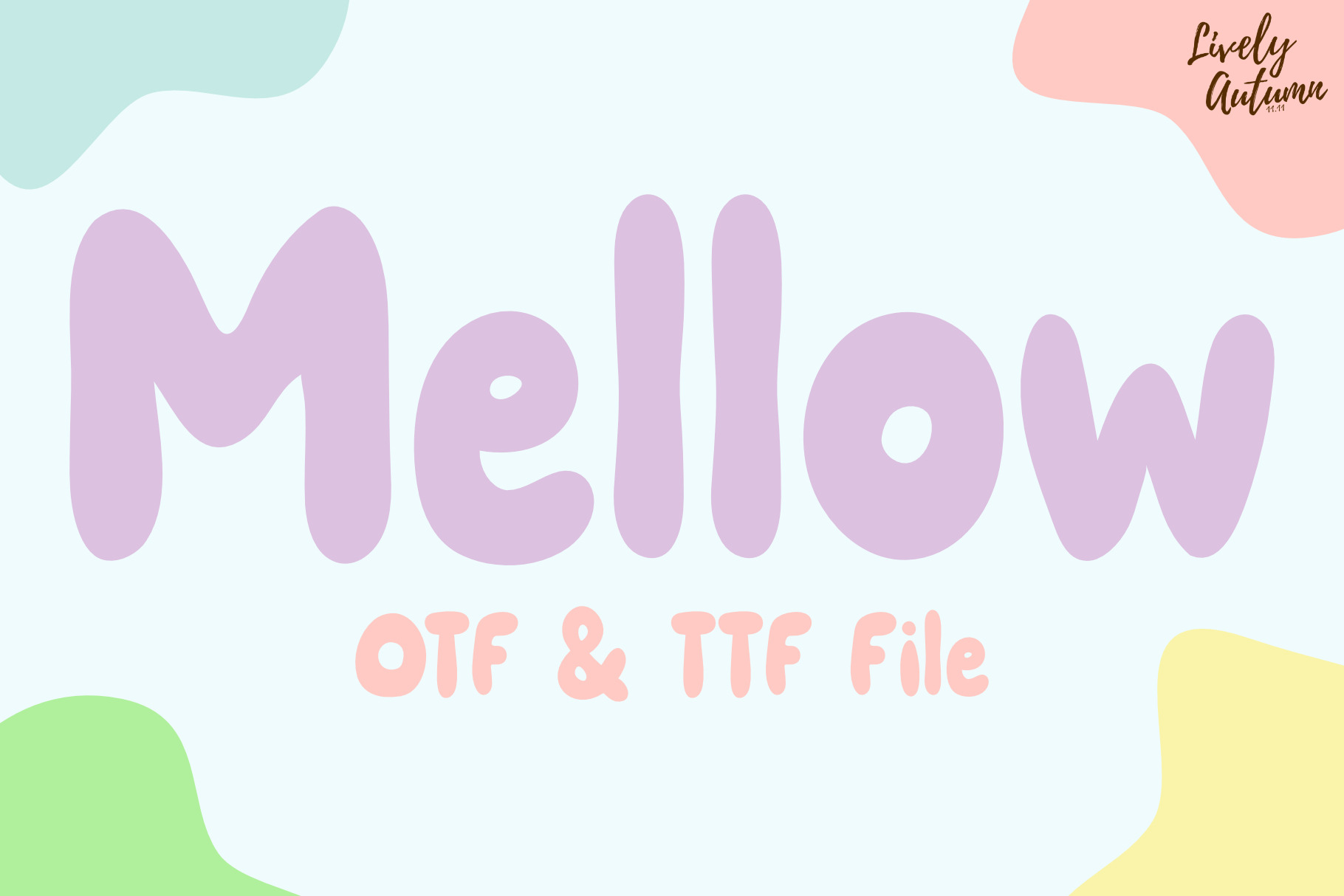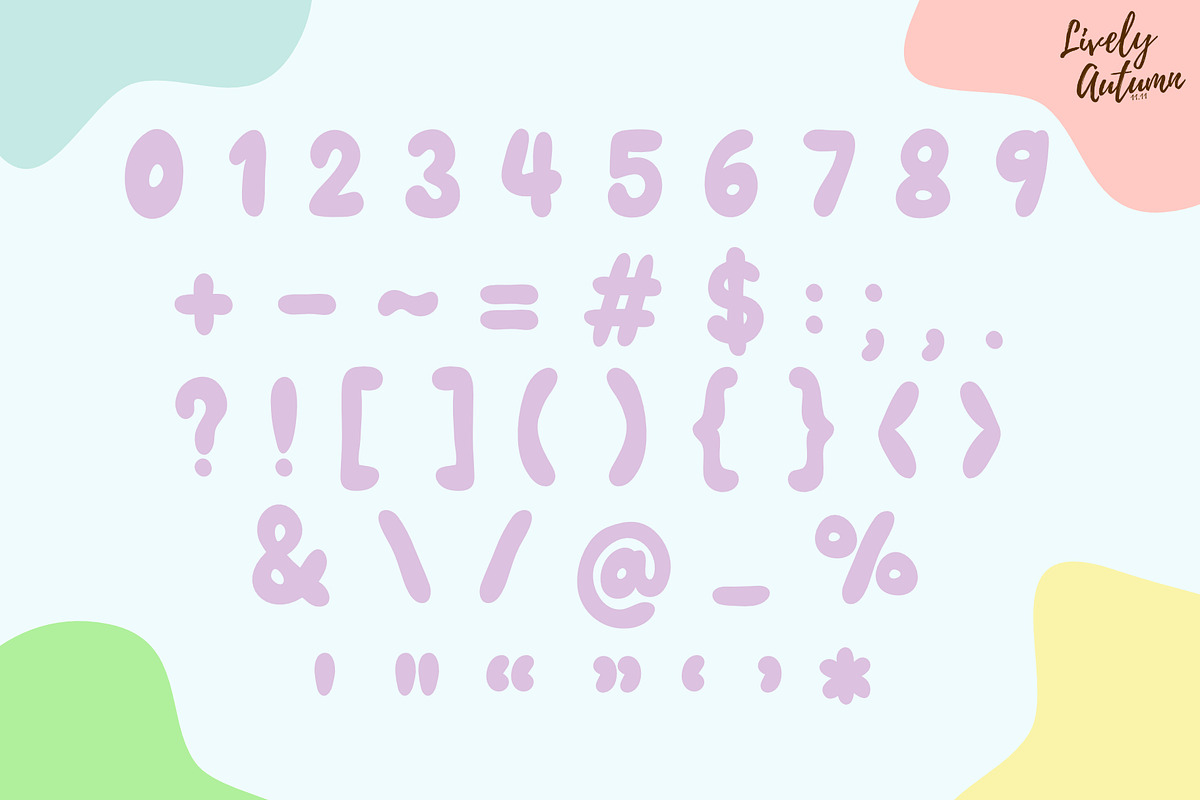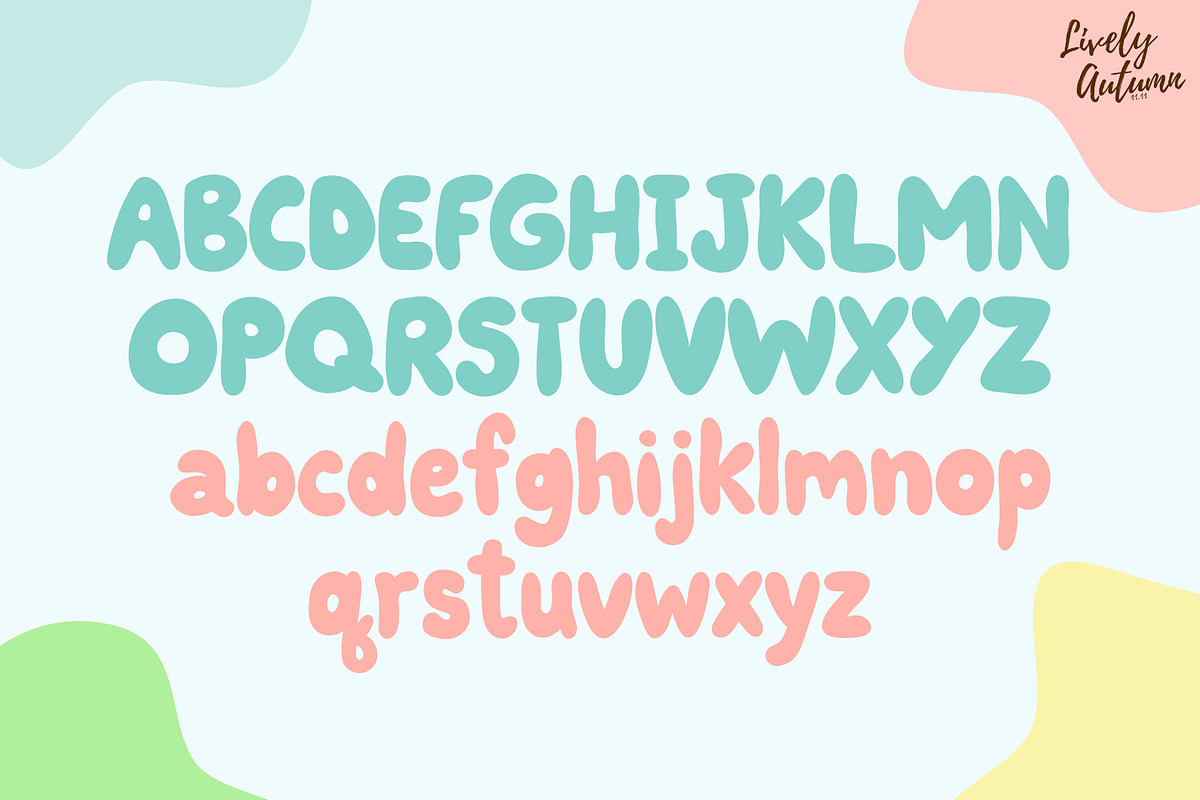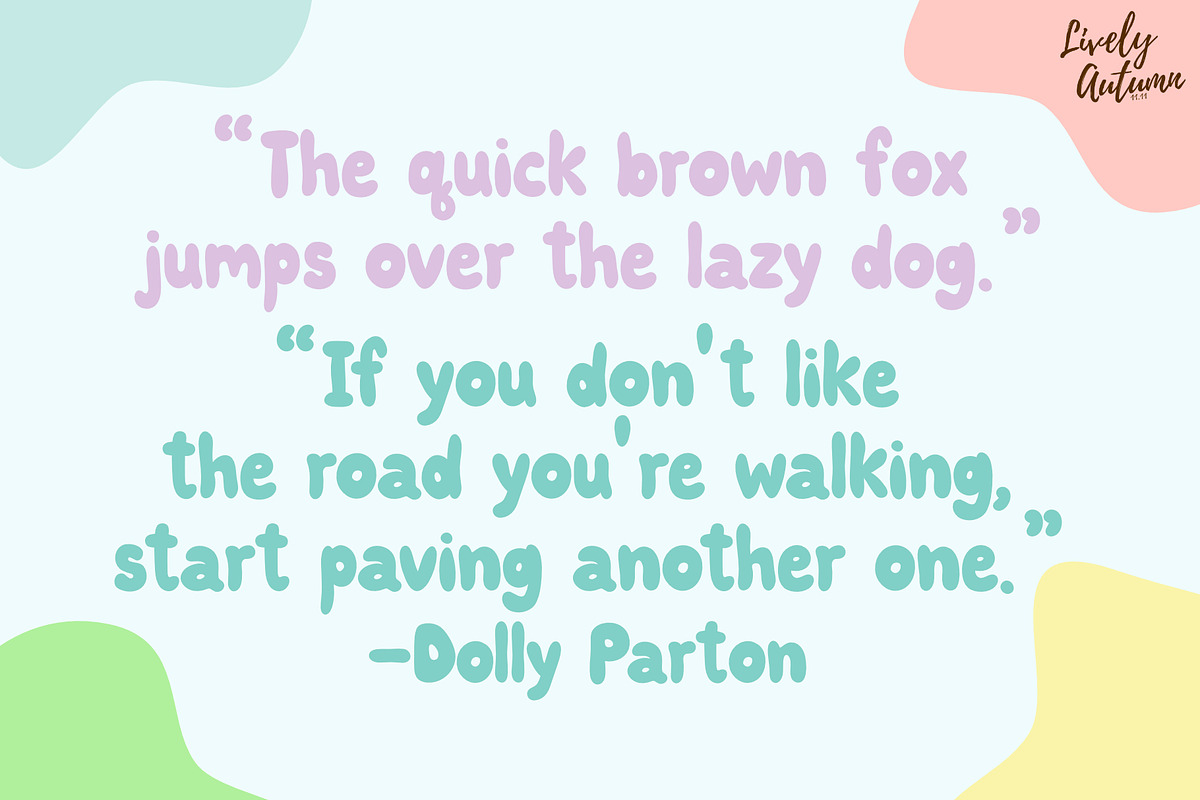
Mellow Font | Chubby Sans Serif Font
Mellow Font is a soft, chubby, and bold San Serif handwritten font. Perfect for your personal projects and various projects. From invitations to posters, social media graphics, journals, and much more.
- Font includes: uppercase, lowercase, numbers, and punctuation.